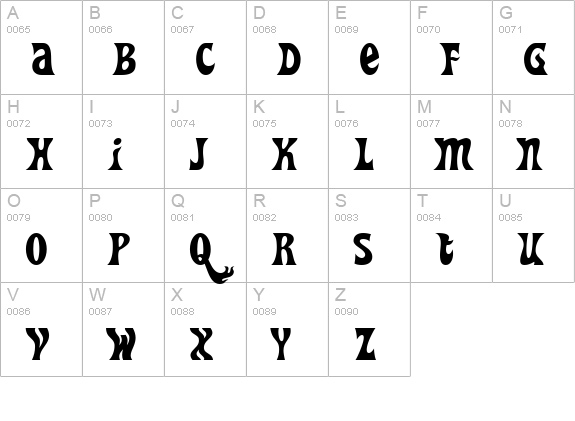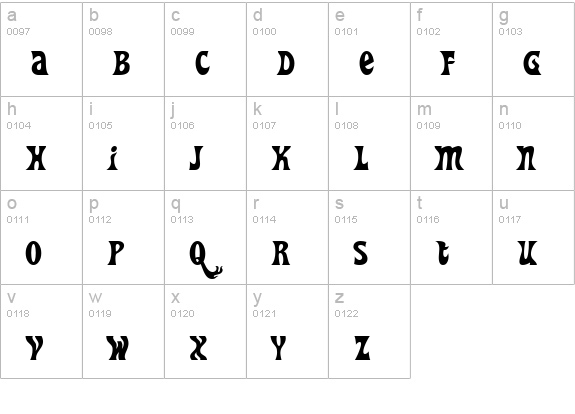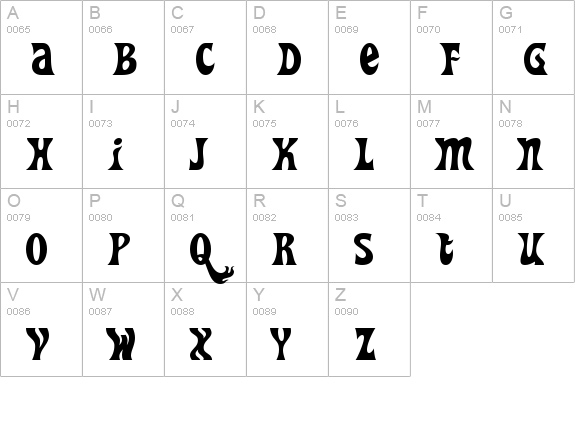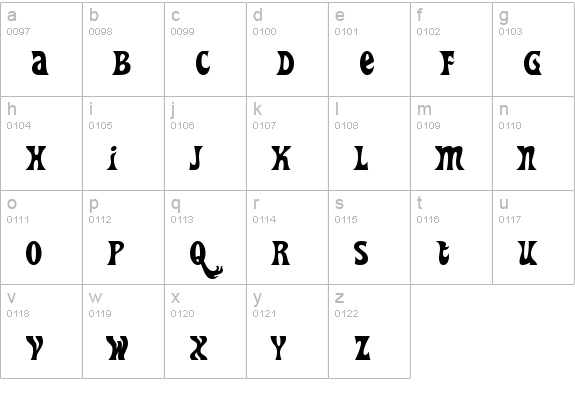
Heavy Heap is a heavy, high-impact variant in the Heavy typeface family \xE2\x80\x94 well suited to high-impact headlines, posters, and display advertising.
Introducing the captivating Heavy Heap font, a powerful typeface that exudes strength and boldness. With its robust and commanding presence, this font is perfect for making a statement and leaving a lasting impression. Designed with meticulous attention to detail, Heavy Heap offers a unique combination of sharp edges and subtle curves, creating a harmonious balance between force and elegance. Its distinct letterforms demand attention and convey a sense of authority, making it an ideal choice for headlines, logos, and branding projects that require a touch of grandeur. One of the most remarkable aspects of Heavy Heap is that it is available for free. Yes, you read that right – this extraordinary font can be freely downloaded at FontsMarket.com. This means that you can enhance your designs with this remarkable typeface without spending a penny. It's a rare opportunity to access a high-quality font that not only delivers exceptional aesthetics but also fits seamlessly into your budget. Whether you're a professional designer looking to amplify your creative arsenal or a beginner eager to experiment with typography, Heavy Heap is a font that will inspire and empower you. Its versatility allows it to shine in various design contexts, from posters and invitations to packaging and web design. The possibilities are truly endless when you have a font as versatile and commanding as Heavy Heap at your disposal. So why wait? Discover the captivating allure of Heavy Heap today and unlock the potential to create visually stunning designs. Head over to FontsMarket.com and download this remarkable font for free. Embrace its commanding presence, and let it elevate your projects to new heights. Get ready to leave a lasting impression with Heavy Heap – the font that combines strength, elegance, and accessibility.